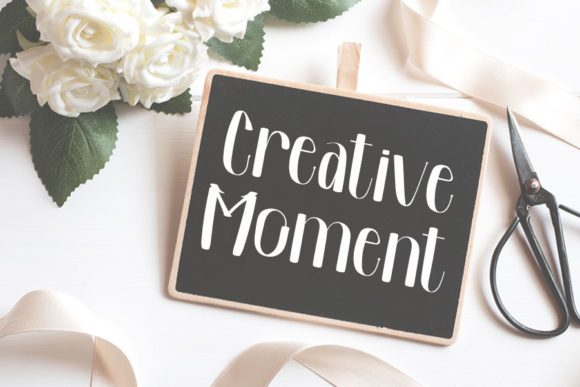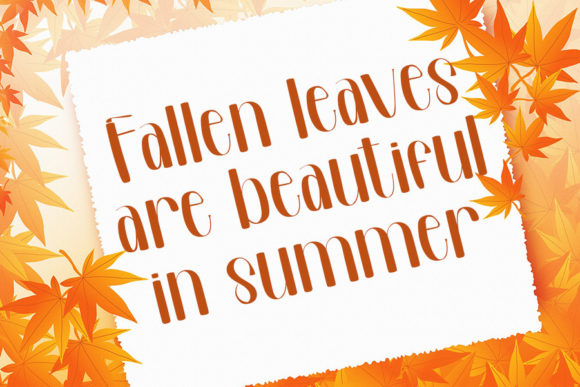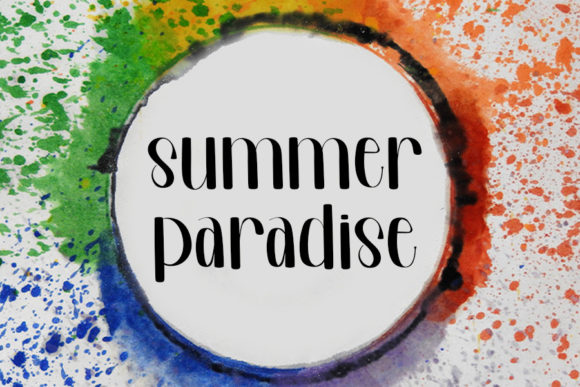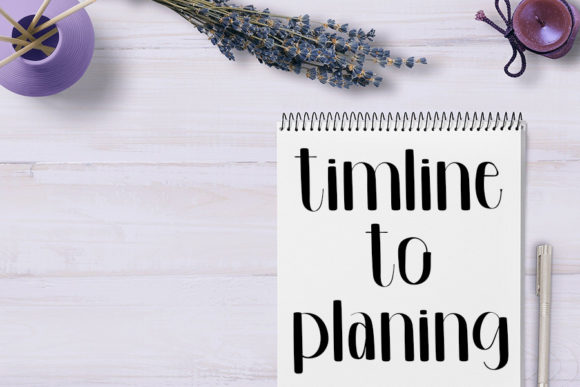
Summer Signature Font
About Summer Signature Font
Summer Signature is a gorgeous and bold handwritten font, crafted to give your headlines and logotype projects a stylish touch. This font reads as strong, confident, and dynamic and can add tons of nostalgic character to your designs.